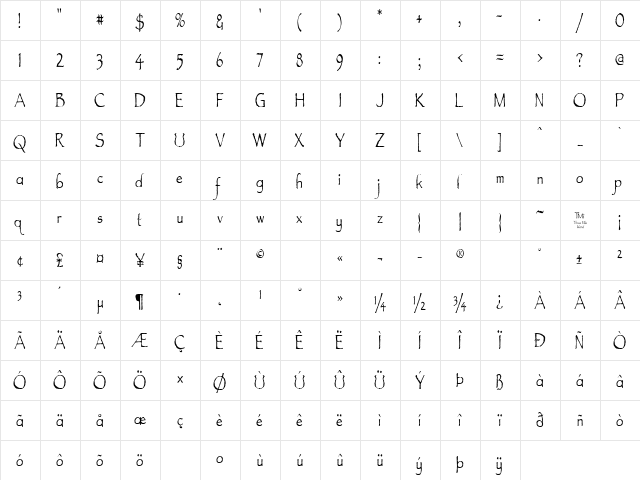
Feldicouth Compressed Regular
Design Context for Feldicouth Compressed Typeface
Feldicouth Compressed offers clean, dependable letterforms without strong stylistic allegiance, making it a practical choice for designers who need flexibility.